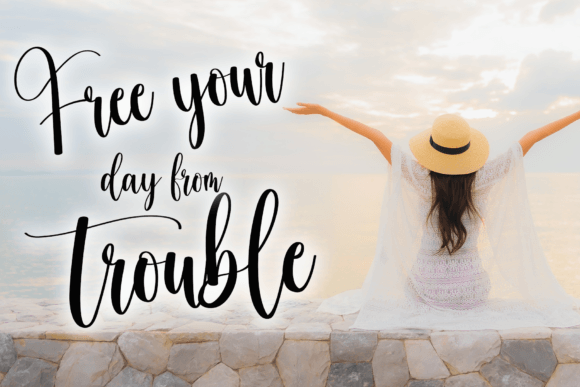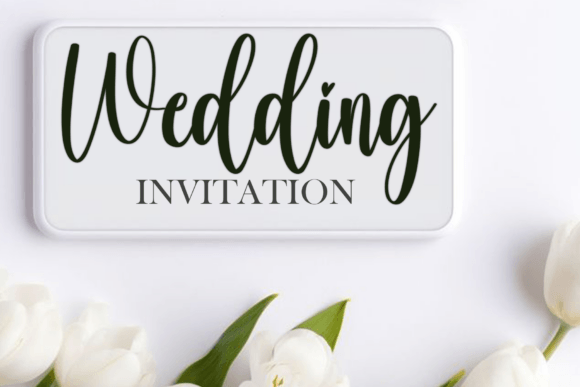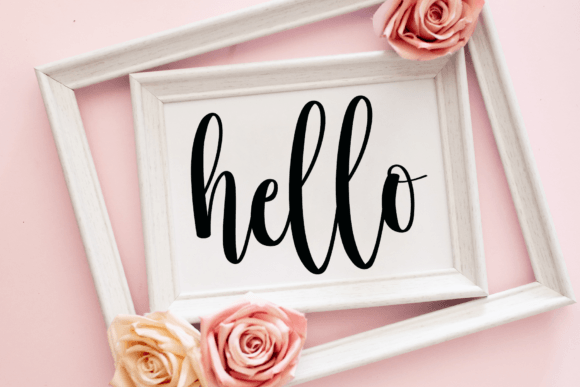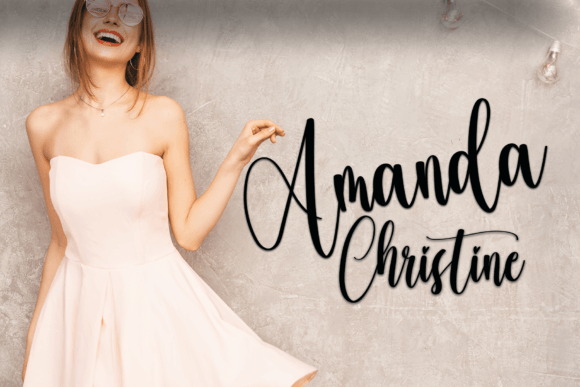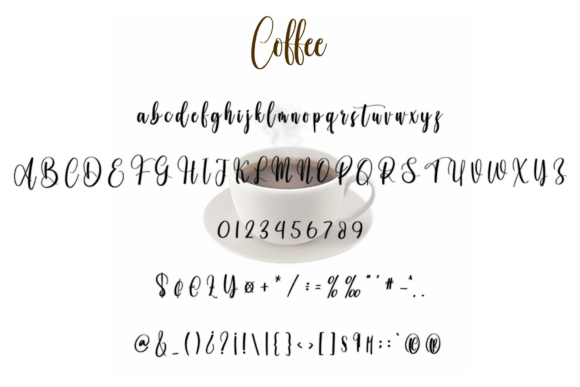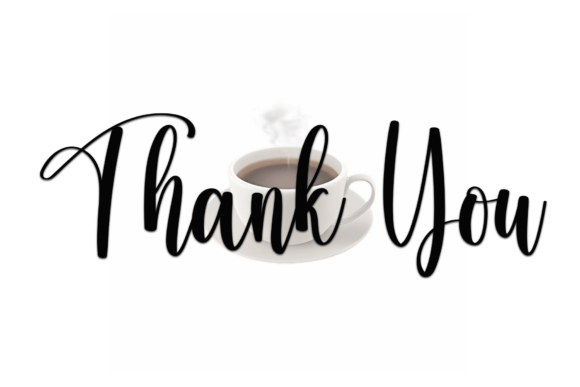
Coffee Font: A Delightful Handwritten Font for Your Design Needs
Coffee Font is a charming handwritten font that exudes warmth and personality. Its unique and whimsical strokes, along with varied letterforms, make it an ideal choice for designers and crafters looking to add a touch of authenticity and charm to their designs. In this article, we’ll explore the features and benefits of Coffee Font, and how it can elevate your designs, whether you’re creating invitations, greeting cards, or branding materials.
The Characteristics of Coffee Font
Coffee Font is a carefully crafted handwritten font that boasts a range of distinctive characteristics. Its strokes are fluid and dynamic, with a subtle irregularity that gives the font a sense of human touch. The letterforms are varied, with some letters featuring elegant flourishes, while others have a more straightforward, simple design. This variation adds visual interest to any text, making it perfect for designs that require a personal touch.
Why Choose Coffee Font?
Coffee Font is an excellent choice for designers and crafters looking to add warmth and personality to their designs. Here are some reasons why:
- Authenticity: Coffee Font’s handwritten nature gives it an authentic feel that’s hard to replicate with generic fonts. Its unique strokes and letterforms evoke a sense of personality and charm that’s perfect for conveying heartfelt messages.
- Versatility: Coffee Font is versatile and can be used for a range of design projects, including invitations, greeting cards, branding, and more. Its adaptability makes it an excellent addition to any designer’s toolkit.
- Emotional Connection: Coffee Font’s whimsical nature helps create an emotional connection with the reader. Its warmth and personality make it perfect for designs that require a personal touch, such as wedding invitations, birthday cards, or thank-you notes.
Using Coffee Font in Your Designs
Coffee Font is easy to use and can be incorporated into a range of design projects. Here are some ideas to get you started:
- Invitations: Use Coffee Font to create beautiful wedding invitations, birthday party invites, or baby shower announcements. Its elegant and whimsical nature makes it perfect for special occasions.
- Greeting Cards: Add a personal touch to your greeting cards with Coffee Font. Its warmth and personality make it ideal for thank-you cards, Christmas cards, or get-well cards.
- Branding: Use Coffee Font to create a unique and memorable brand identity. Its distinctive nature makes it perfect for logos, packaging, or marketing materials.
Tips for Working with Coffee Font
Here are some tips to help you get the most out of Coffee Font:
- Pair with Other Fonts: Coffee Font pairs well with other fonts, such as sans-serif fonts or serif fonts. Experiment with different combinations to find the perfect balance for your design.
- Adjust Font Size: Coffee Font’s delicate nature means it can be sensitive to font size. Experiment with different sizes to find the perfect balance for your design.
- Use in Combination with Images: Coffee Font looks great in combination with images, such as photographs or illustrations. Use it to add context and personality to your designs.
Coffee Font is a delightful handwritten font that adds warmth and personality to any design. Its unique and whimsical strokes, along with varied letterforms, make it perfect for conveying heartfelt messages. Whether you’re a designer or crafter, Coffee Font is an excellent addition to your toolkit. With its versatility, authenticity, and emotional connection, Coffee Font is sure to become a favorite font for designers and crafters alike.